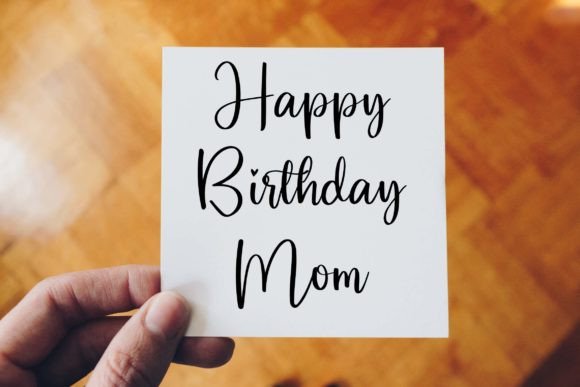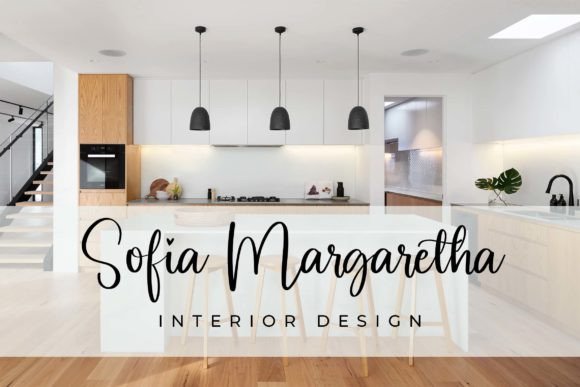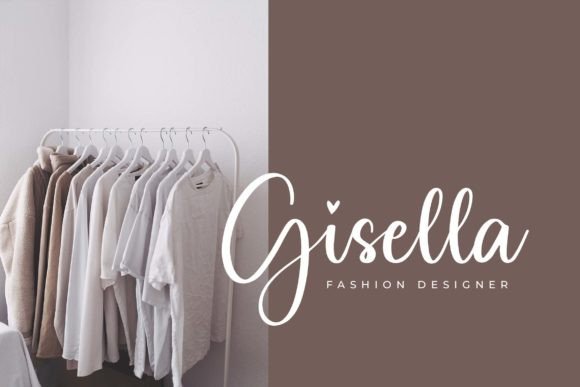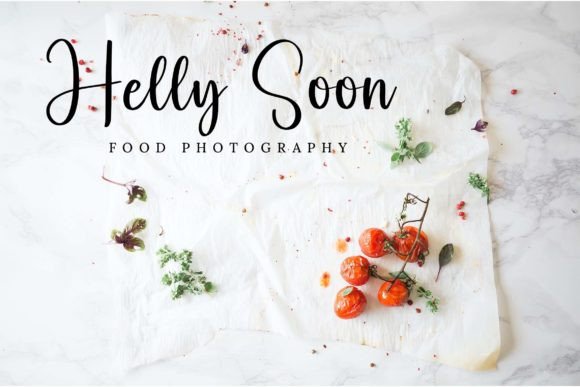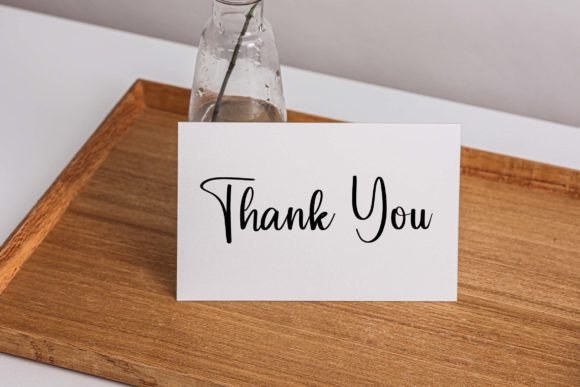
The Sweet Charm of Bounty Font: A Designer’s Delight
I’ll never forget the time I was working on a wedding invitation project, and my client asked me to create a custom design that exuded elegance and sophistication. As I scrolled through my font library, I stumbled upon Bounty Font, and it was love at first sight! ✨ This sweet and elegant handwritten font has since become a staple in my design toolkit, and I’m excited to share its charm with you.
An Honest Review of Bounty Font
• ✨ Elegant and refined aesthetic, perfect for wedding invitations, social media posts, and greeting cards
• 💕 Beautifully crafted with attention to detail, giving it a personal touch
• 🎉 Versatile and adaptable to various design projects, from digital to print
While Bounty Font is an excellent choice for many projects, there are a few minor quirks to consider:
• 🤔 Limited character set compared to other fonts, which might limit its use for certain languages or special characters
• ⚠️ Not ideal for body text or long-form content, as it’s best suited for headlines and titles
The Backstory of Bounty Font
Bounty Font was designed with love and care by a talented type designer who aimed to create a beautiful and elegant handwritten font. Inspired by classic calligraphy and refined typography, Bounty Font is the perfect blend of traditional and modern design elements.
Q: What type of projects is Bounty Font best suited for?
A: Bounty Font is ideal for wedding invitations, social media posts, greeting cards, and other creative projects that require an elegant and refined aesthetic.